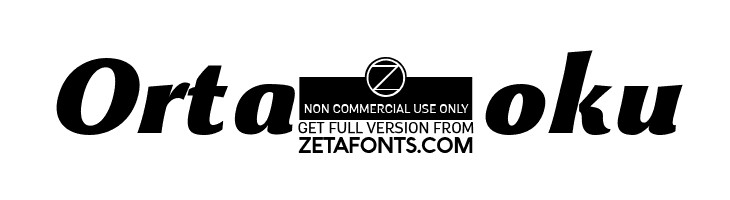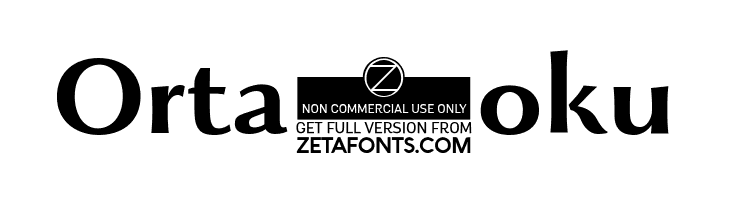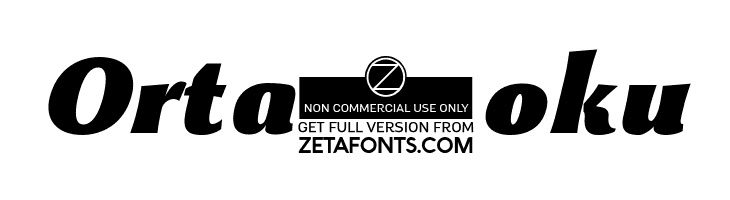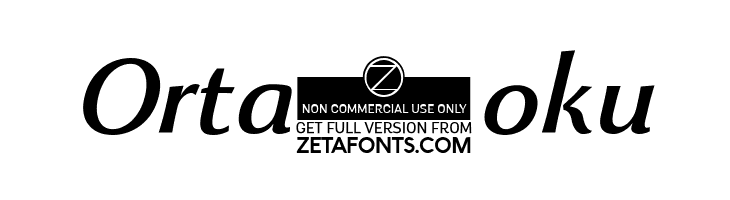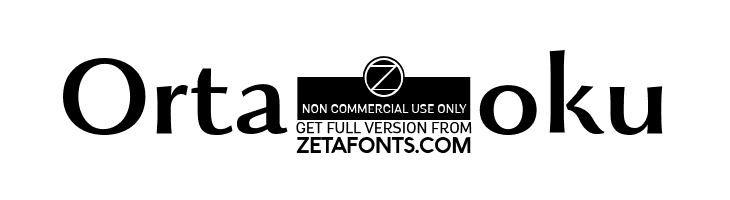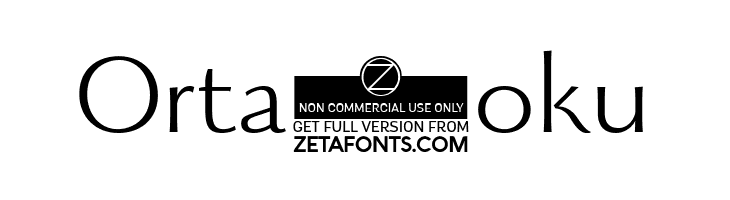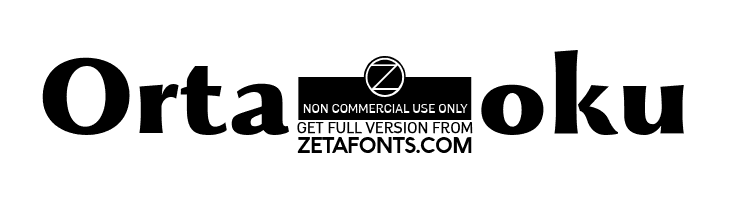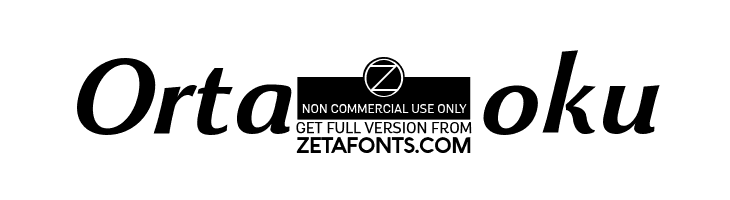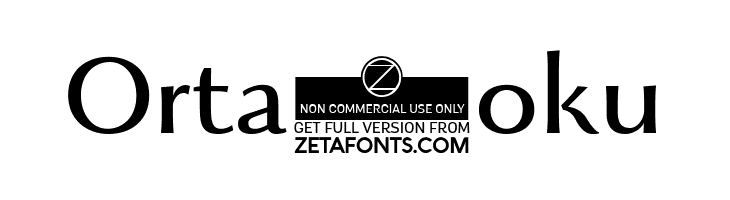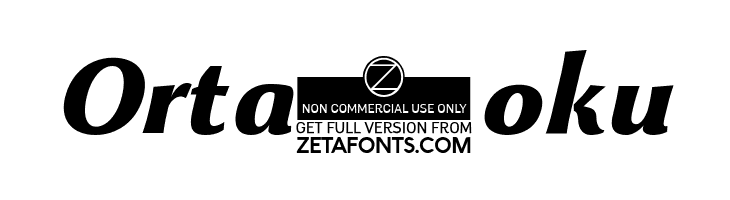
• Beatrix Antiqua SemiBold
A classic serif font with semi-bold weight, offering elegance and readability.
• Beatrix Antiqua SemiBold Italic
A classic semi-bold italic font with elegant serifs and smooth curves.
• BeatrixAntiqua-Regular
A classic serif typeface with elegant curves and medium contrast, ideal for sophisticated designs.